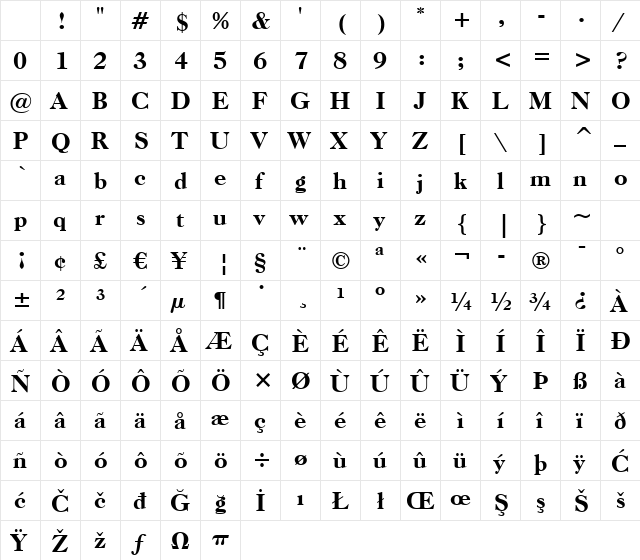
CaslonOldFace Hv BT Heavy
CaslonOldFace Hv BT Family
CaslonOldFace Hv BT Heavy
Design Context for CaslonOldFace Hv BT
CaslonOldFace Hv BT is a composed and adaptable typeface that performs quietly and consistently across a wide range of design contexts.